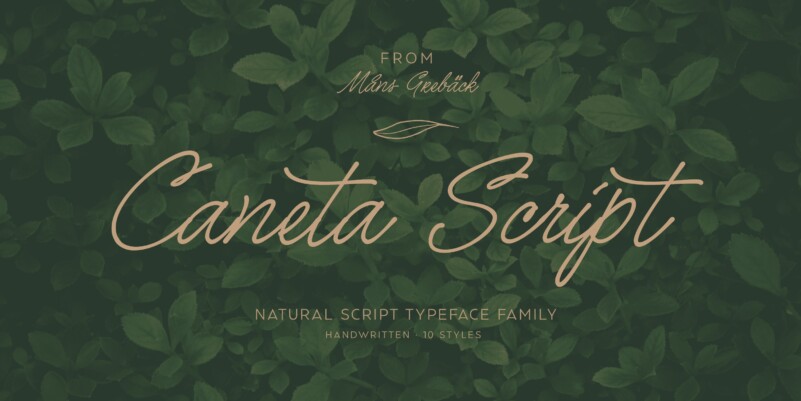
Caneta Script Font
Caneta Script Font is a a special handbrush script typeface because of its pretty and versatile look. Reminiscent of handwritten letters and feather pen scribbles, this unique font exudes a sense of authenticity and personality, making it perfect for signatures and personal branding. The diverse styles in the Caneta Script font family allow you to convey different moods and create visual interest in your projects. Caneta Script also covers Arabic scripts, making it a versatile choice for projects that require Middle Eastern compatibility. The font is built with advanced OpenType functionality and has a guaranteed top-notch quality, containing stylistic and contextual alternates, ligatures, and more features; all to give you full control and customizability. It has extensive lingual support, covering all Latin-based languages, from Northern Europe to South Africa, from America to South-East Asia. It contains all characters and symbols you’ll ever need, including all punctuation and numbers.